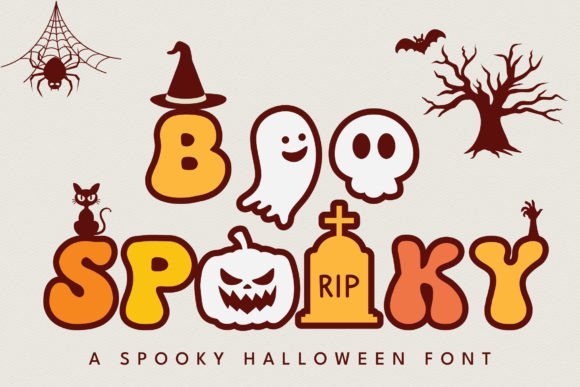
The Spellbinding Power of Boo Spooky Font
As the sun sets on a crisp autumn evening, and the moon casts an eerie glow over the landscape, the creative juices start flowing. You’ve got a halloween party to plan, and you want to make it a night to remember. The perfect invitation is just what you need to set the tone for a spooky soiree. But, what font will you choose to make it truly unforgettable?
That’s where the Boo Spooky Font comes in – a font that will add a touch of horror to any design project. Whether you’re creating party invitations, spooky signage, or bewitching crafts, this font is sure to cast a bewitching spell. As a designer, you know the importance of selecting the right font to convey the mood and atmosphere of your project. And with the Boo Spooky Font, you can’t go wrong.
Key Features of “Boo Spooky Font”
- Font Family: Boo Spooky Font is a sans-serif font family.
- Unique Characteristics: Features a bold, playful, and spooky design, perfect for Halloween-themed projects and designs.
- Character Set: Includes a wide range of characters, including uppercase and lowercase letters, numbers, and punctuation marks.
Designer Review: Boo Spooky Font
Overall, I was excited to dive into the “Boo Spooky Font” and see what it had to offer. Here are my honest thoughts on what works well and what doesn’t.
- The unique, playful aesthetic of the font is perfect for Halloween-themed designs or anything that needs a spooky vibe.
- The bold lines and chunky texture add a fun, whimsical feel that’s sure to grab attention.
- The font is highly legible, even at smaller sizes, making it a great choice for text-heavy designs.
- The font may be a bit too cartoonish for more serious or professional designs, which could limit its versatility.
- The bold lines and texture may not be suitable for designs that require a more delicate or subtle look.
- The font is limited to a single weight, which may make it less adaptable to different design contexts.
Overall, I think the “Boo Spooky Font” is a great choice for designers looking to add a playful, spooky touch to their projects. However, it may not be the best fit for every design scenario. With a little creativity and careful consideration, this font can add a lot of character to your work.
For best results, use the font in a bold or italic style to enhance the spooky effect.
Use the font in conjunction with other spooky design elements, such as cobwebs and ghosts, to create a cohesive look.
Use the font to create attention-grabbing titles and headings for your spooky designs.
The “Boo Spooky Font” is perfect for:
Creating spooky invitations and party decorations.
Designing Halloween-themed social media graphics and ads.
Adding a touch of whimsy to children’s party invitations and decorations.
Creating eerie and suspenseful title sequences for horror movies and TV shows.
Alternatives to “Boo Spooky Font”